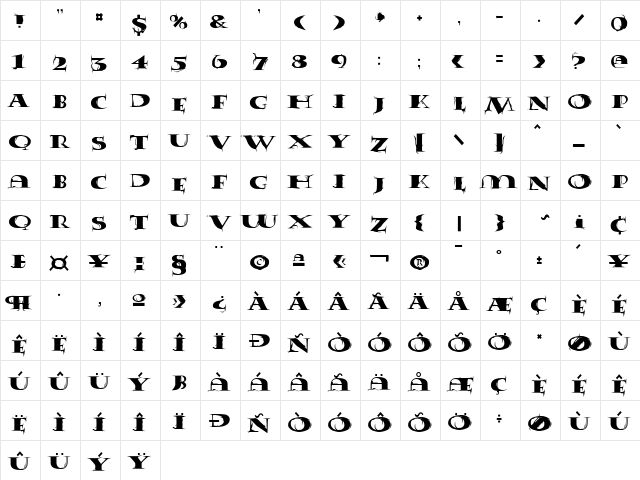
Tumbleweed Medium
| Copyright | Copr.1995 Marcus Burlile. The lowercase version contains A,M and W that are alternate characters. |
Design Context for Tumbleweed Typeface
Tumbleweed is a composed and adaptable typeface that performs quietly and consistently across a wide range of design contexts.